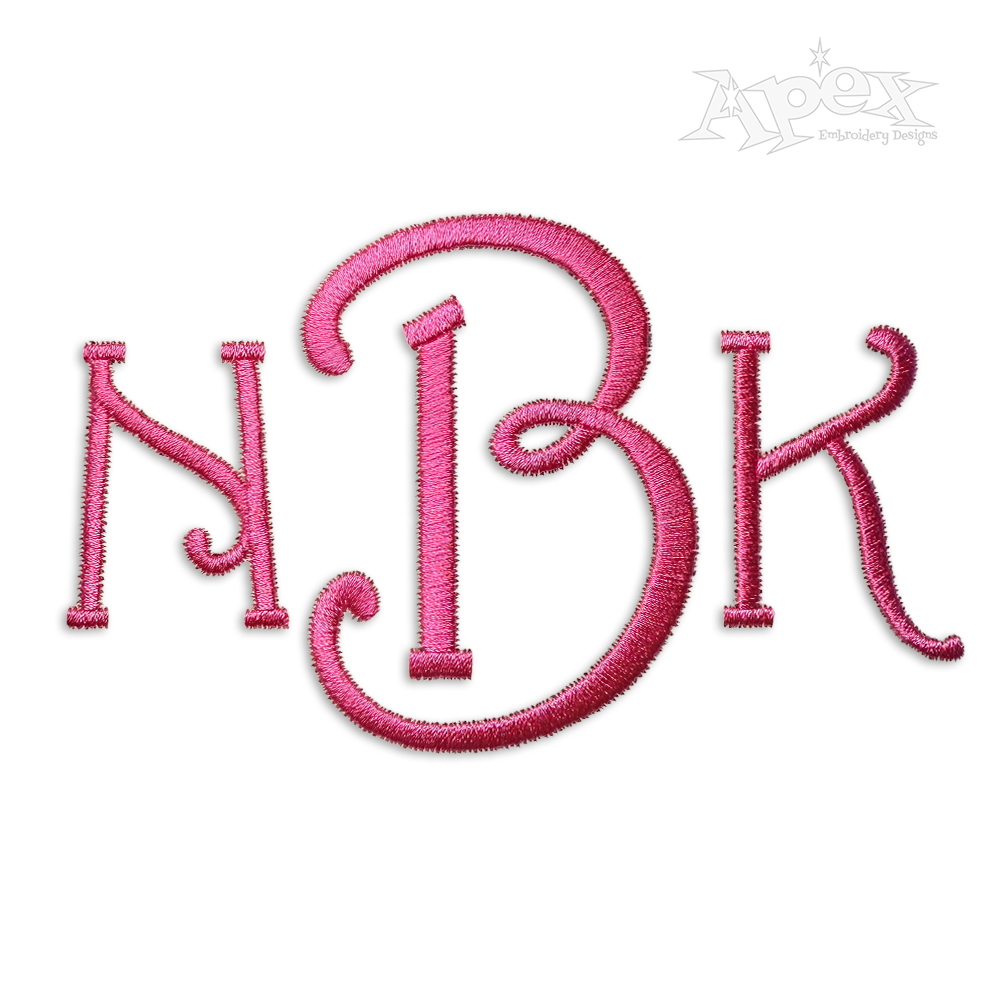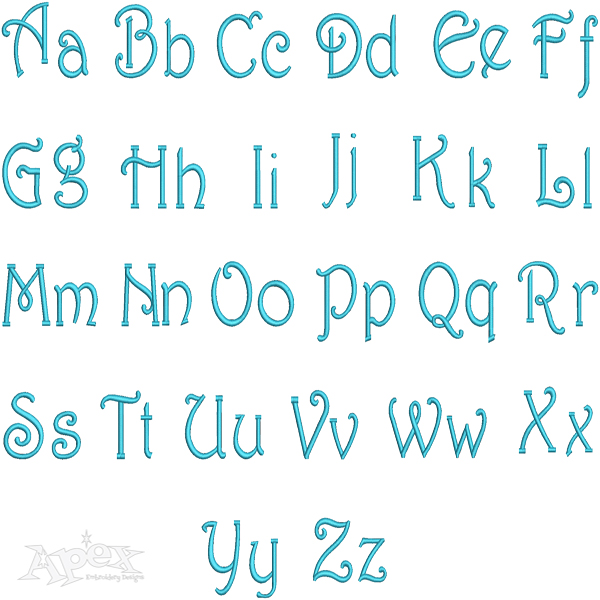
Harrington Embroidery Font
There is an irrepressible whimsy coiled into the heart of the Harrington Embroidery Font, an airy sophistication reminiscent of vintage storybook typography and turn-of-the-century atelier signage. When translating these spirited letterforms to the hoop, our goal at Apex Embroidery Designs was to preserve the joyful dance between ornate flourish and tailored grace. Each uppercase letter unfolds with buoyant, coiled terminals and playful curves, while the companion lowercase alphabet balances each composition with rhythmic clarity. Whether stitched in luminous rayon or classic matte cotton, this satin stitch alphabet brings an unmistakable sense of curated charm, lighthearted luxury, and bespoke warmth to your needlework.
Project Ideas for Harrington Embroidery Font
- Bespoke Bridal Robes & Loungewear: Embroider the bride's new initials or bridal party names across silk charmeuse or waffle knit robes for elevated morning-of keepsakes.
- Heirloom Bedding & Pillow Shams: Frame guest quarters or nursery spaces with playful three-letter monograms that strike a rare harmony of classic formality and storybook charm.
- Luxury Table Linens & Cocktail Napkins: Add an artisanal focal point to pure linen hemstitched napkins for festive seasonal dinners, garden luncheons, and celebratory tablescapes.
- Resort Wear & Canvas Weekend Totes: Personalize crisp sun hats, seaside canvas bags, and terry beach wraps with generous three-inch capital monograms.
- Children’s Boutique Keepsakes: Stitch personalized names onto heirloom christening blankets, birthday cardigans, and knit sweaters.
The expressive nature of Harrington makes it remarkably adaptable across diverse textile surfaces, provided the placement respects its whimsical flourishes:
- Corner Diagonal: Angle single initials 1.5 to 2 inches inward along the mitred corner of linen dinner napkins and pocket squares to give the scrolling serifs room to breathe.
- Center Chest Placement: Position full names or centered monograms 3 to 4 inches below the front neckline on crewneck sweatshirts, baby rompers, or structured shirts.
- Left Chest Monograms: Align the center point of a 2-inch monogram roughly 7 to 9 inches down from the shoulder seam and midway between the center placket and armhole seam on men's or women's button-downs.
- Cuff & Hem Accents: Stitch single lowercase or compact uppercase initials along shirt cuffs or bathrobe sleeves, resting just above the edge seam for an understated, bespoke detail.
Harrington Embroidery Font Craft & Letterform Details
Digitizing a font with as much personality as Harrington requires rigorous attention to vector geometry and stitch mechanics. The true artistry lies within the iconic spiral serifs and sweeping archways: each curved terminus is mapped with radial satin turns that rotate the thread angle seamlessly, eliminating harsh breaks and preserving a mirror-smooth surface sheen. To counter the natural push-and-pull stresses of curved satin bars, we engineered specialized underlay foundations that stabilize the base fabric without stiffening the embroidery. The junctions where sweeping loops cross stem strokes are programmed with balanced stitch densities, preventing unsightly thread bunching while keeping every delicate loop crisp, open, and effortless on the finished textile.